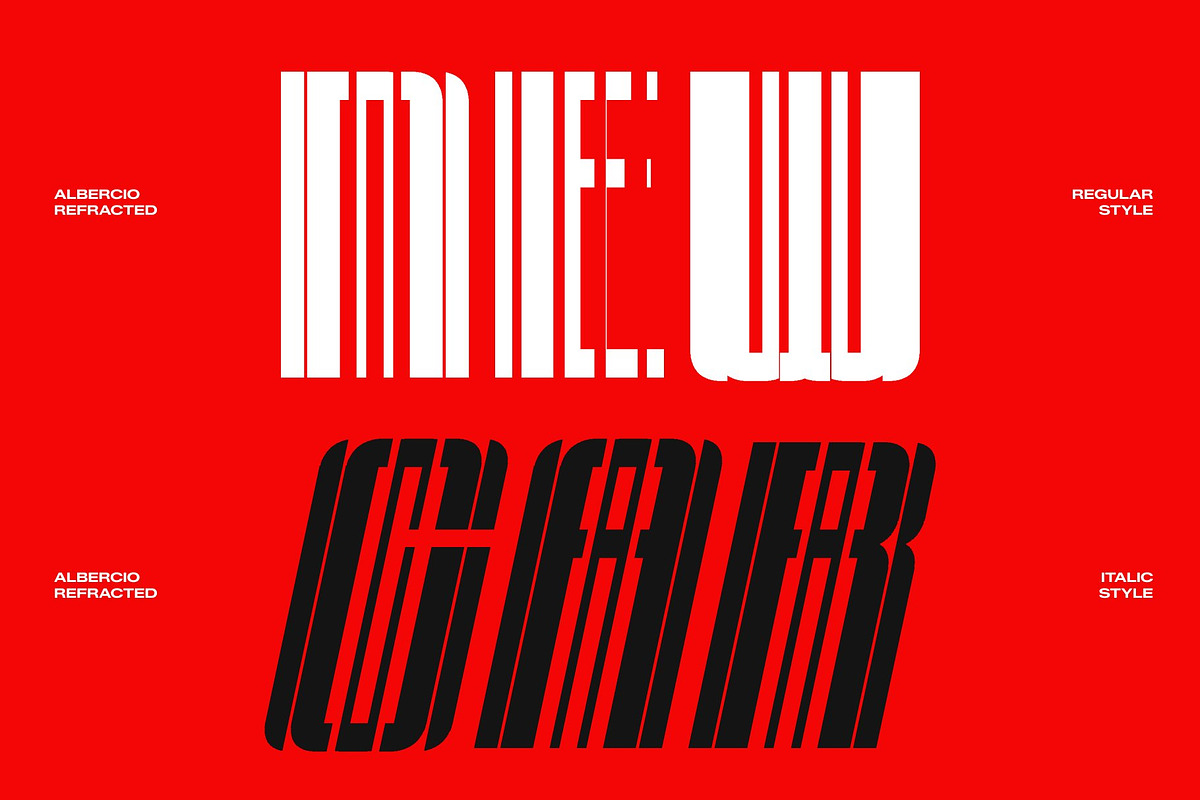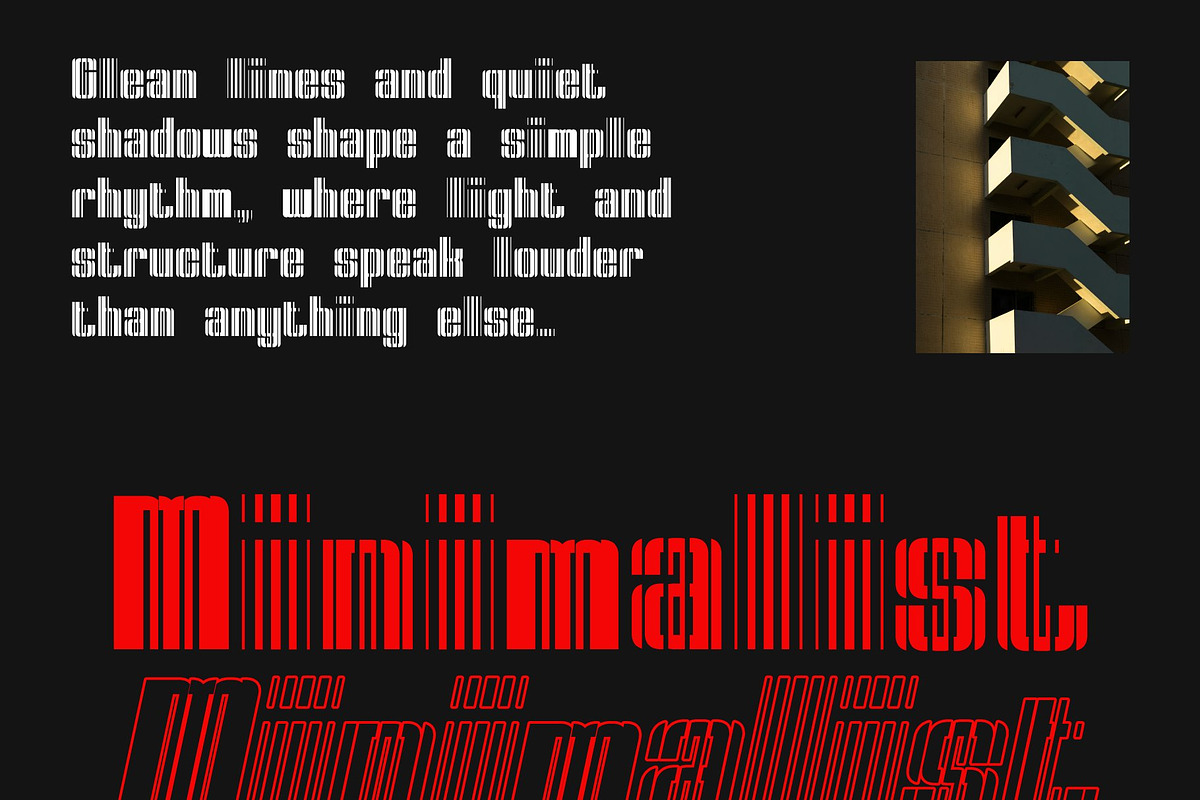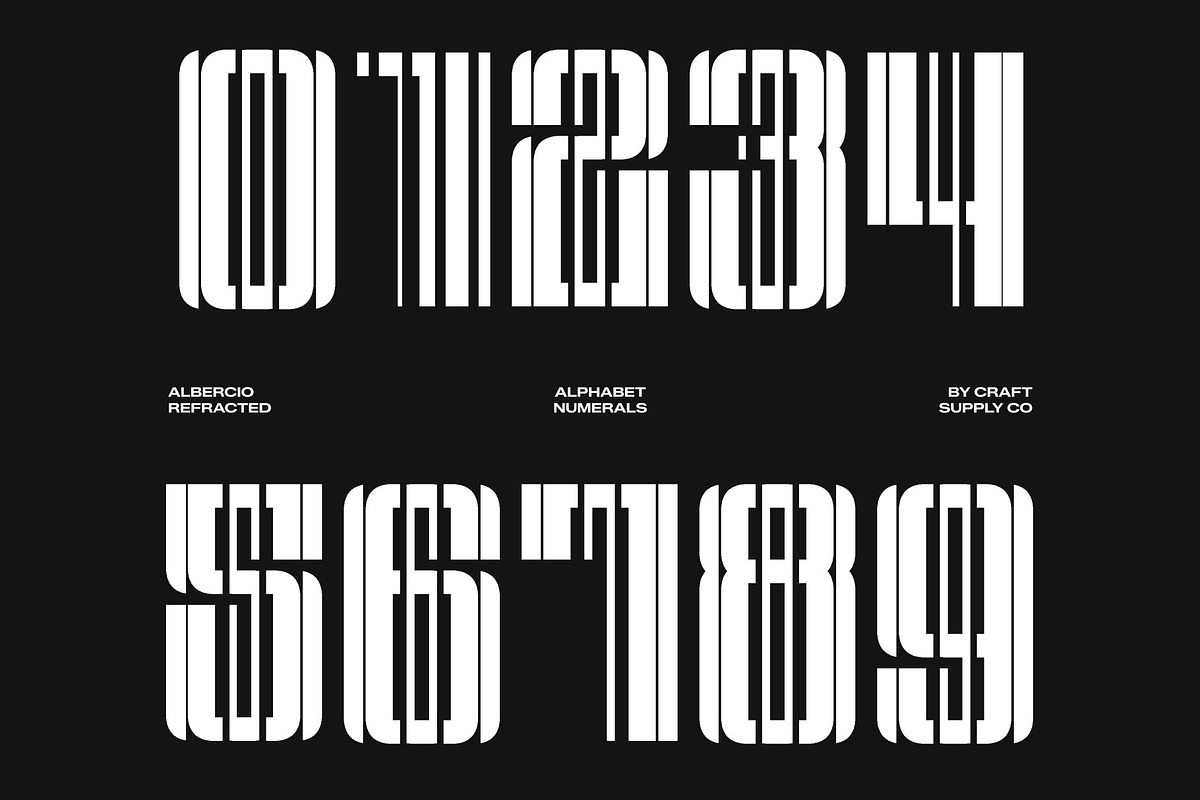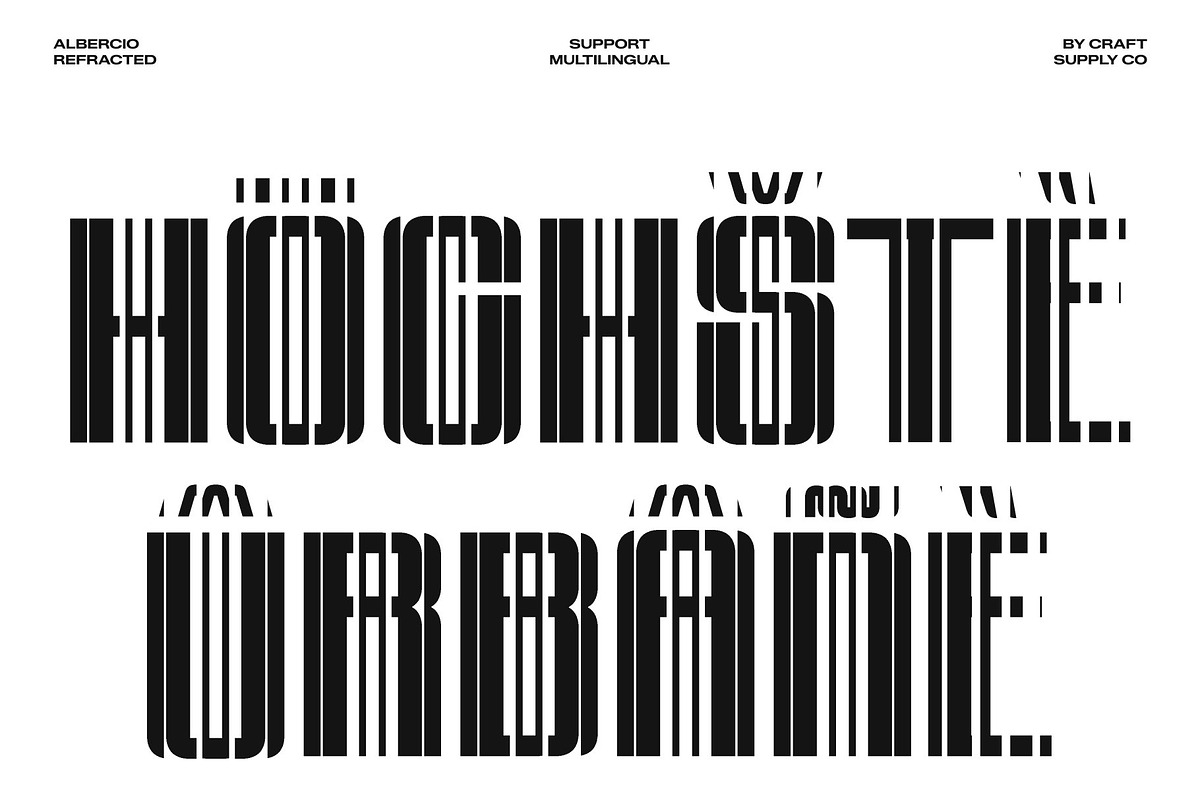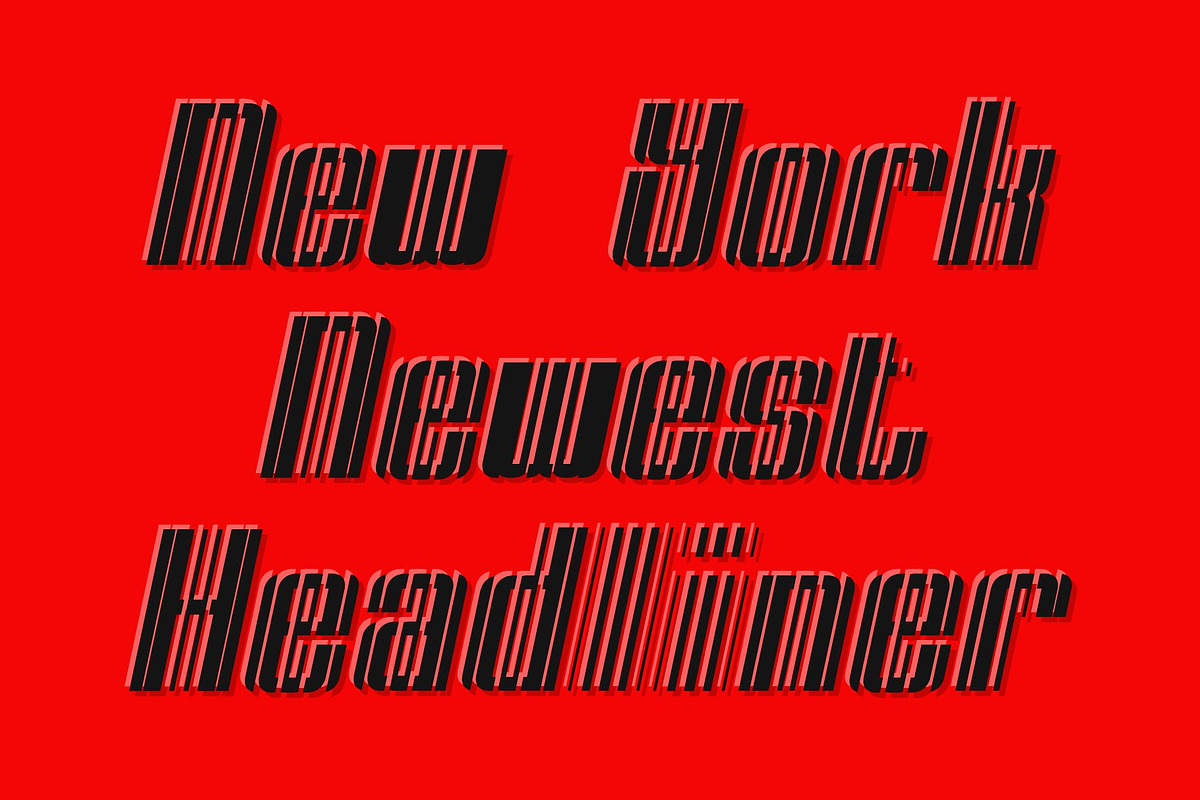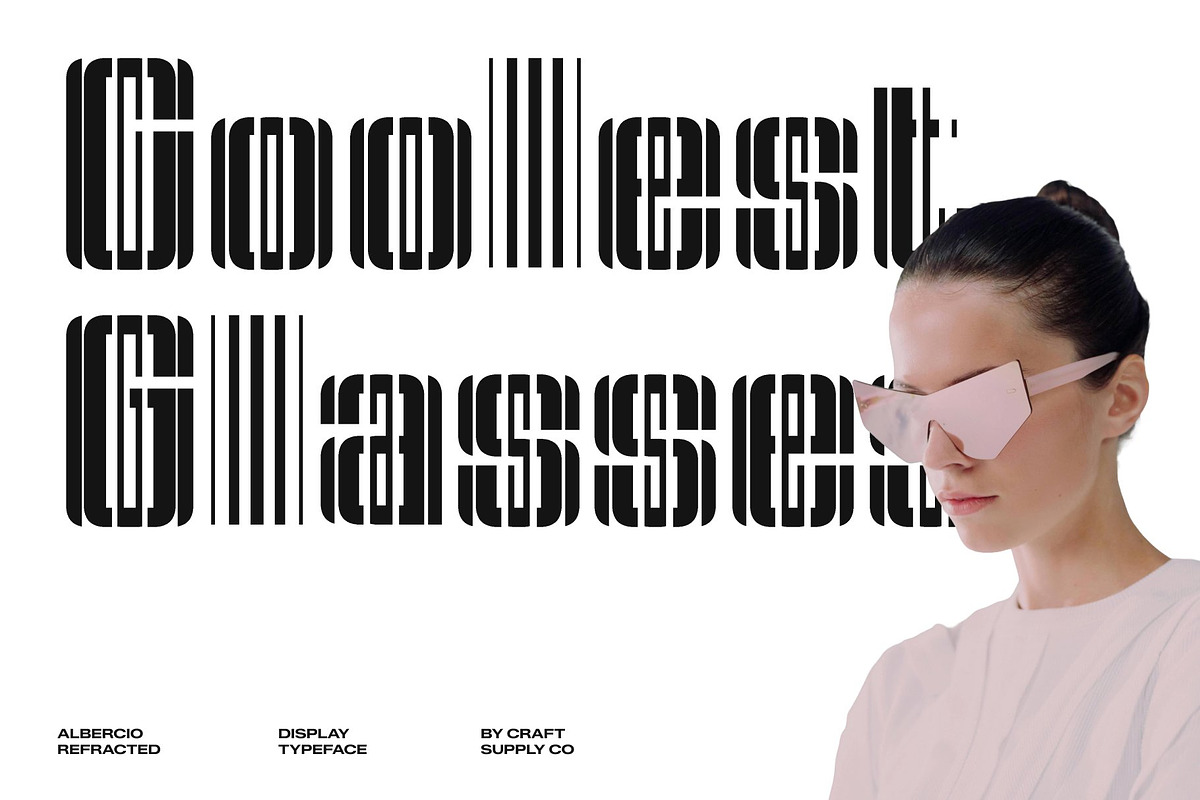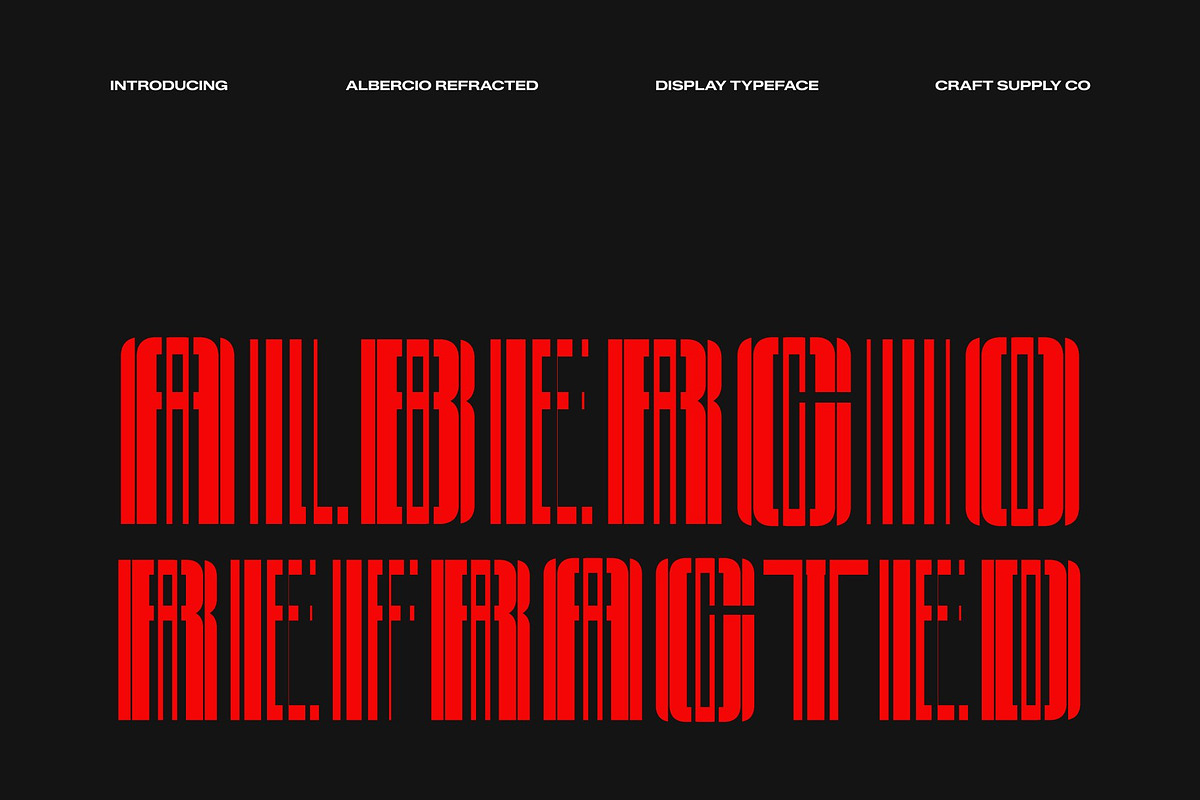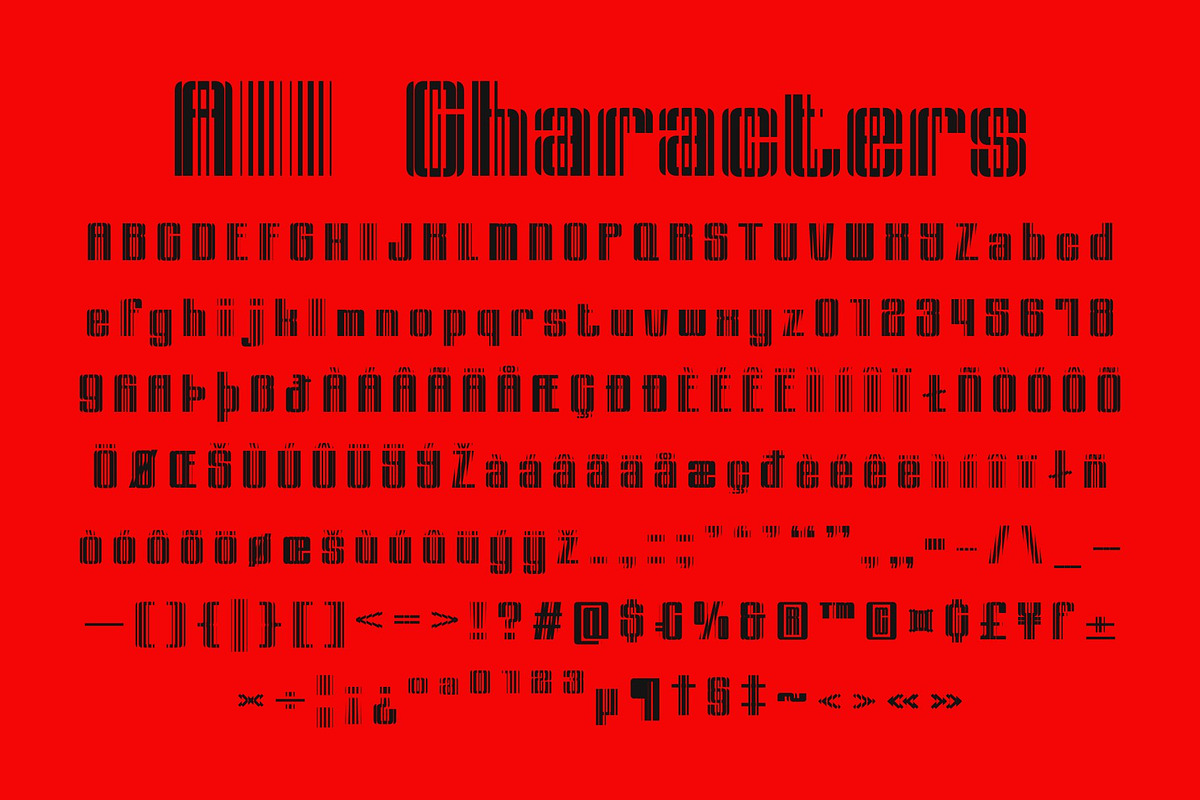
Albercio Refracted
Albercio Refracted – Condensed Sans Serif Font: Where Compact Strength Meets Futuristic Refraction
Bold Narrow Forms with Clean Modern Precision This is a condensed sans serif font designed to deliver powerful visual impact in tight spaces. Its narrow proportions and bold structure create a sleek and commanding appearance while maintaining excellent readability. The clean contemporary forms give the font a professional and modern personality, making it ideal for strong display compositions and space-efficient layouts.
Refracted Effect with Futuristic Visual Energy This font features fragmented cuts, sliced geometric details, and dynamic line interruptions that create a futuristic digital atmosphere. These refracted elements mimic reflected light and technological interference, adding movement, depth, and experimental edge while preserving the font’s elegant and clean foundation.
Compact Futurism with Urban Modern Appeal This font delivers a typographic identity that feels technological, stylish, and visually immersive. Its balanced mix of compact readability and fragmented sci-fi aesthetics creates a dynamic atmosphere ideal for urban and high-tech creative projects.
Perfect for Techwear, LED Displays, and Futuristic Branding This font perfect for high-tech product visuals, techwear fashion branding, underground club promotions, urban LED displays, posters, streaming graphics, and futuristic campaigns. Its condensed refracted forms make it ideal for logos, interfaces, event visuals, merchandise, and modern visual identities that seek a sleek and advanced appearance.
Albercio Refracted Regular
Albercio Refracted Italic